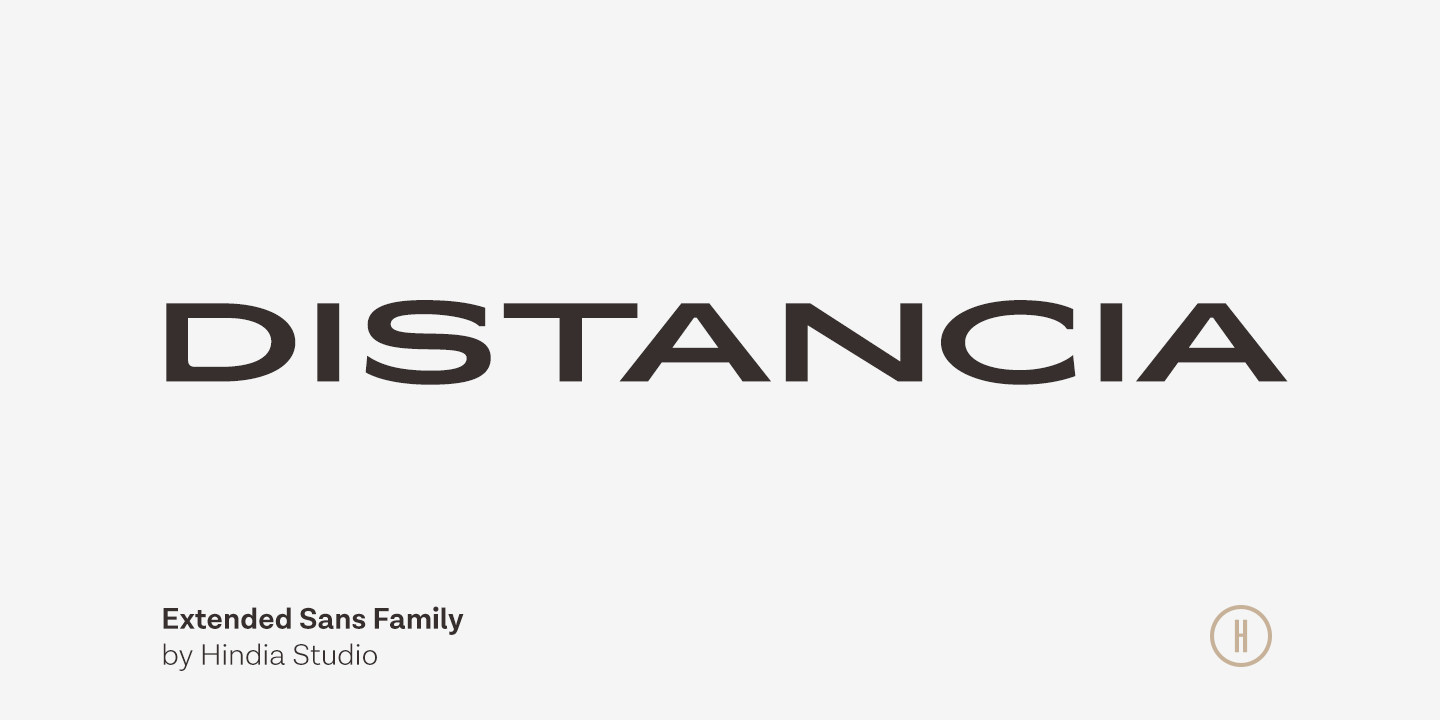
Distancia Font is perfect for modern architecture presentations, minimalist brand identities, contemporary art gallery catalogs, clean web design projects, professional business reports, sleek product packaging, editorial magazine layouts, corporate presentations, and sophisticated marketing materials that demand clarity and modern elegance.
Distancia Font brings excitement through its refined geometric precision and contemporary character design that embodies modern sophistication. This exceptional typeface features carefully balanced proportions, clean lines, and subtle spacing that create a sense of openness and clarity. The font's minimalist approach combined with excellent readability makes it perfect for projects that need to convey professionalism, innovation, and contemporary design thinking without unnecessary ornamentation.
Distancia Font family includes Thin, Light, Regular, Medium, Bold, and Black variations. Each style maintains the font's characteristic modern clarity while offering different weights and visual densities for comprehensive typographic hierarchy and design flexibility across diverse applications.
The contemporary appeal of Distancia Font Free Download lies in its versatile nature and ability to enhance any design with its clean, uncluttered aesthetic. Whether you're working on corporate communications, digital interfaces, or high-end print materials, this font provides the perfect balance of functionality and style.
Distancia Font excels in both digital and print environments, maintaining its crisp appearance and optimal legibility across all sizes and platforms. From website headers to annual reports, this versatile typeface ensures your message communicates professionalism and modern sophistication to your target audience.